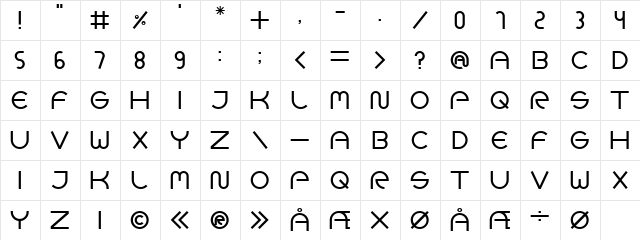
GOCA LOGOTYPE BETA Regular
| Foundry | Jonas Borneland Hansen |
| Designer | Jonas Borneland Hansen |
Design Context for GOCA LOGOTYPE BETA Typeface
GOCA LOGOTYPE BETA is a composed and adaptable typeface that performs quietly and consistently across a wide range of design contexts.